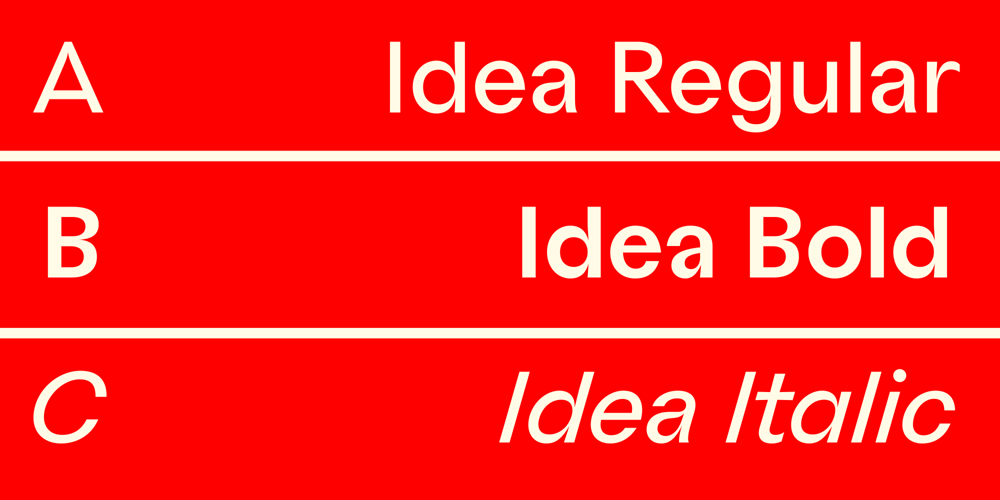
ABC Idea Font Family was designed by Miguel Hernández and published by Alphabets by Chileans (A.B.C.). ABC Idea contains 4 styles and family package options. ABC Idea is a contemporary geometric sans full of opentype features in Regular, Bold and very “fast” Italic.The design is an experimental fusion or mix between Humanist, Geometric and Grotesque models. The fine drawing in all letters and signs has precise ink traps to highlight contrast jus like lettering and calligraphy does, then ABC Idea re-creates this exquisite graphic details into the digital world.Designed by Miguel H. MontoyaFonts in Use Images by letargo.cl Magazine.Art Direction by studioprado.cl